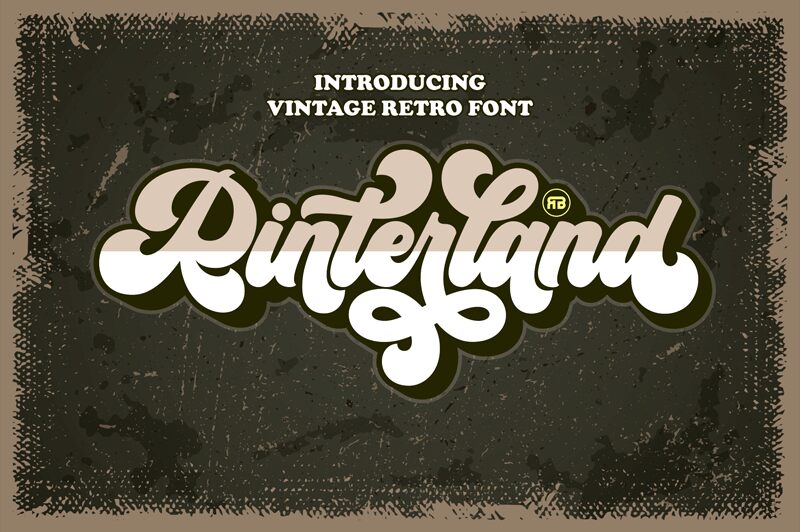
Rinterland by RGB Studio is a striking retro brush font that captures the vibrant essence of the 70s and 80s with a bold flair. Its nostalgic charm is infused with dynamic brush strokes, making it an ideal choice for projects that require a touch of vintage personality mixed with assertive presence. This font's robust style and lively curves evoke memories of hand-painted signage and rock album covers, offering a sense of authenticity to any design.
With Rinterland, you can infuse your branding, posters, t-shirt designs, and editorial headings with an air of retro coolness that's both attention-grabbing and genuinely timeless. Its bold character ensures legibility from afar, making it as practical as it is aesthetically appealing for diverse visual storytelling.
Designed by MOH. MA'IN from RGB Studio in 2023.